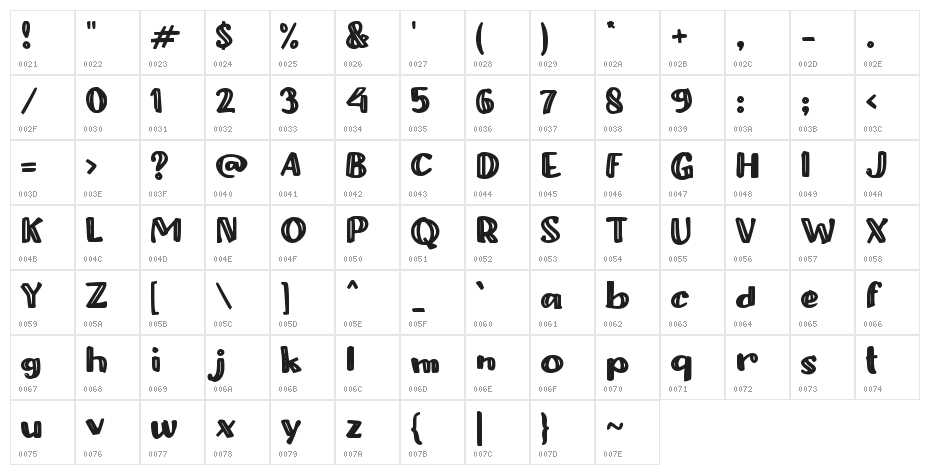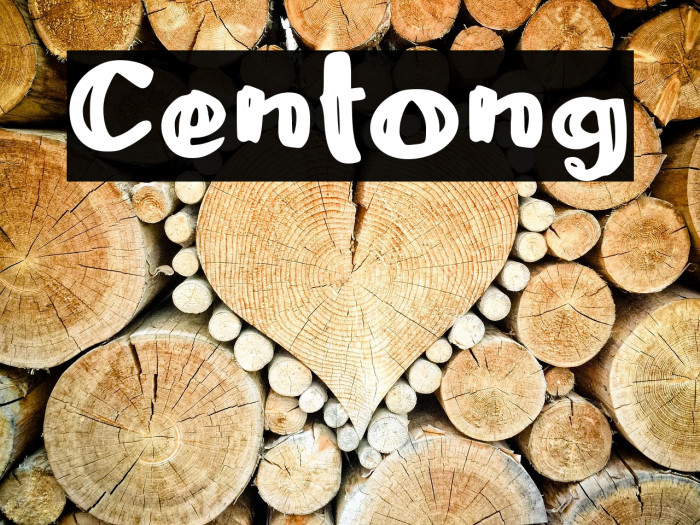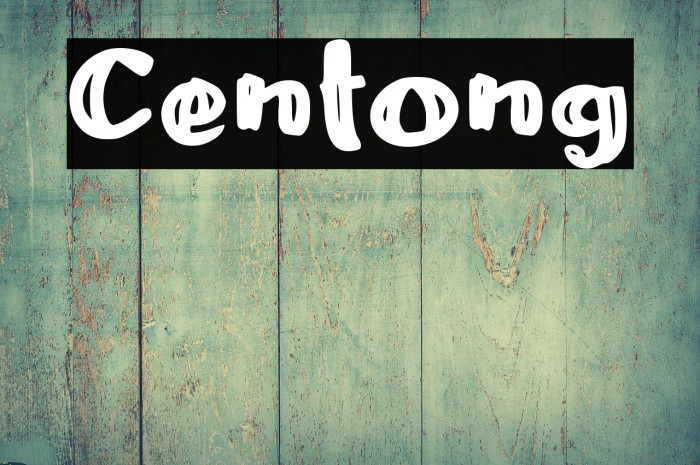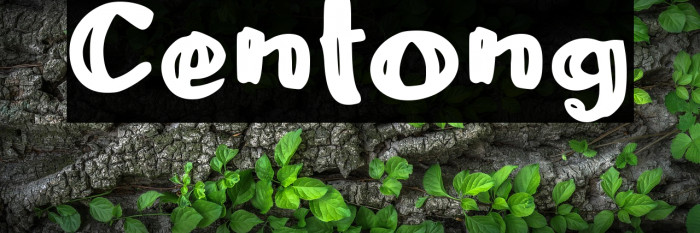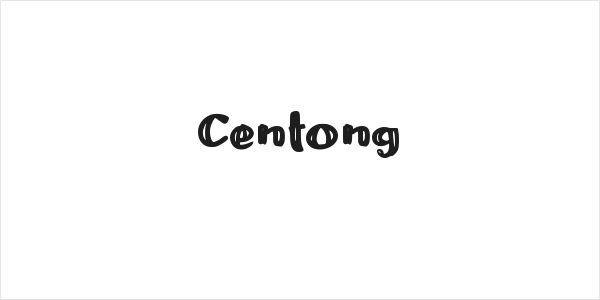
Centong Font
Centong Description
This font features a playful and bold style with a hand-drawn appearance. The characters are thick and rounded, giving a friendly and approachable feel. The strokes are uneven, adding to the casual and informal vibe. The uppercase and lowercase letters maintain a consistent style, with the lowercase slightly smaller but equally bold. Numbers and special characters follow the same design, ensuring uniformity across all glyphs. The overall look is energetic and fun, making it suitable for creative and informal projects.
| Proposed Projects | Ideal for children's books, playful branding, party invitations, and creative posters. |